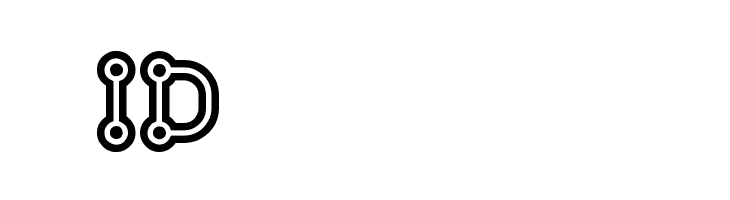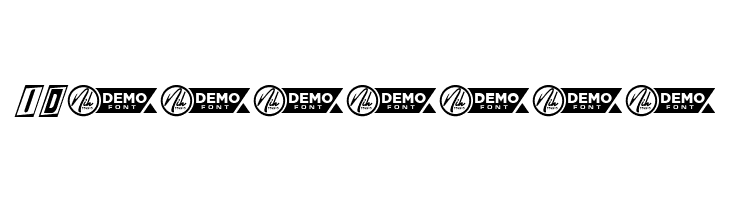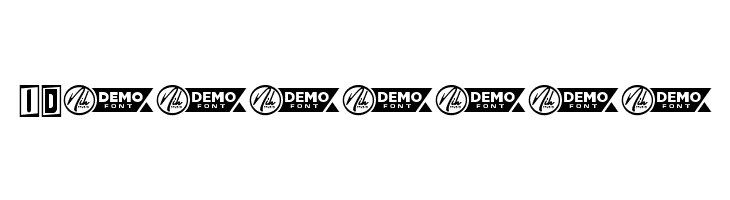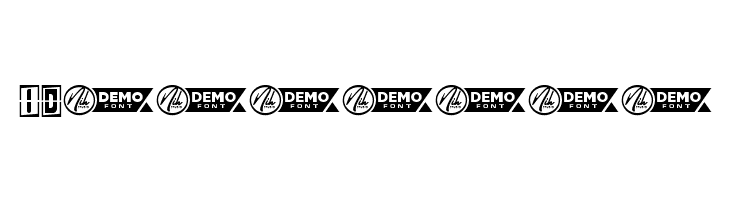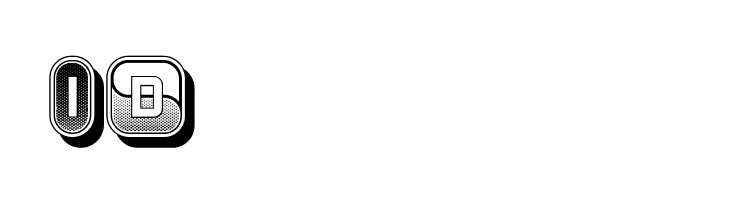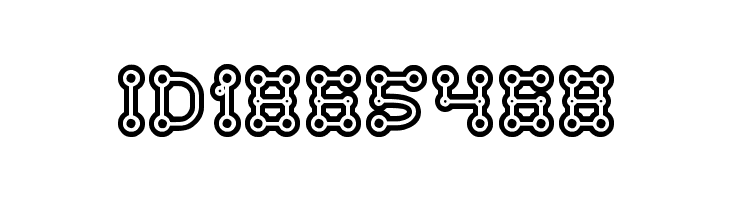
Bold, enclosed uppercase letters with a playful, modern design.
A bold, italic font with geometric letters in tilted frames, exuding energy and modernity.
A bold, geometric font with a strikethrough effect and square framing.
A playful, circuit-inspired font with bold, rounded lines and circular nodes.
A bold, decorative font with a mechanical and futuristic design.
A bold, decorative font with a 3D effect and intricate patterns.